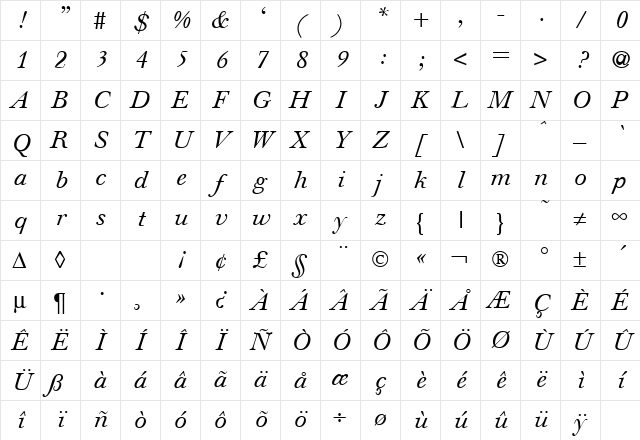
WalbaumOriginal RegularItalic
Design Context for WalbaumOriginal
WalbaumOriginal is a composed and adaptable typeface that performs quietly and consistently across a wide range of design contexts. The slanted form adds forward momentum and visual energy.
Pro Tip: Use WalbaumOriginal for emphasis, pull quotes, and subheadings where its slanted energy can add rhythm to the layout.